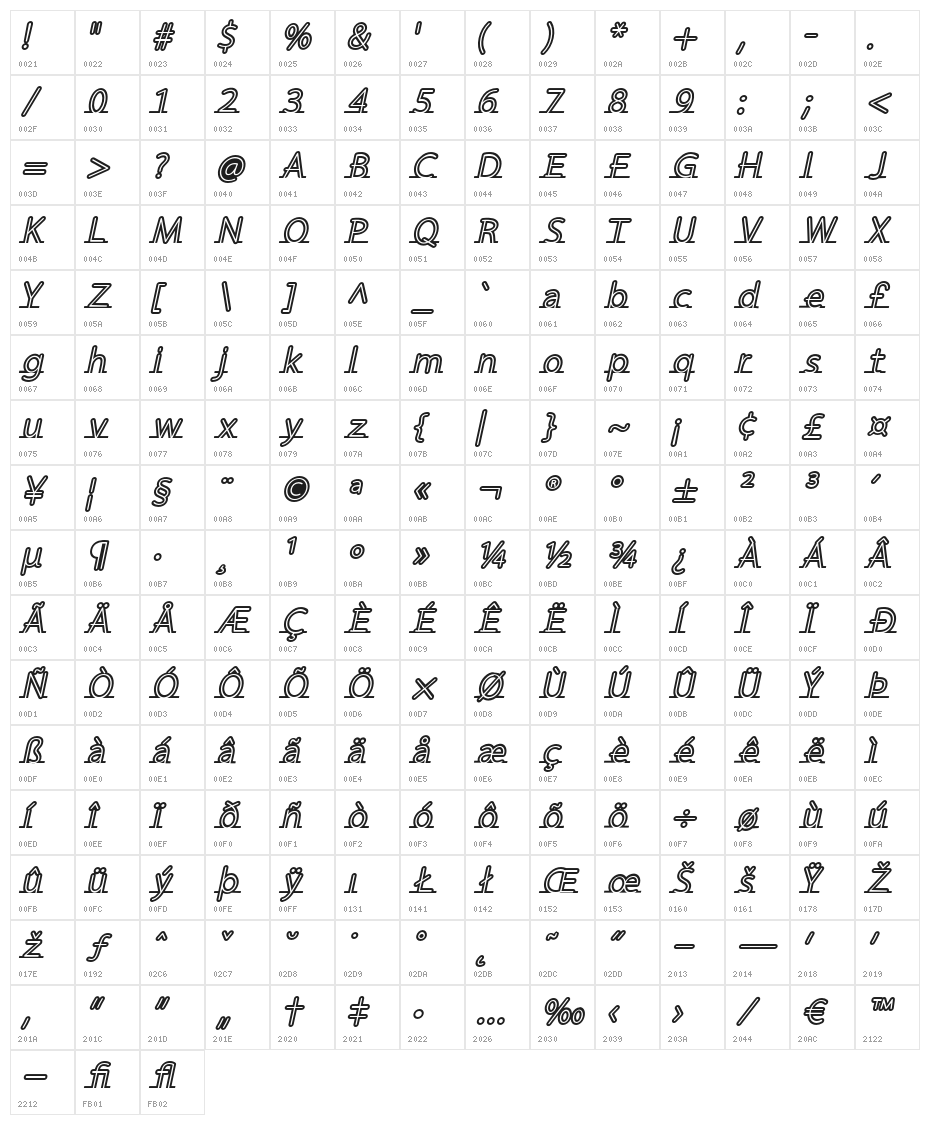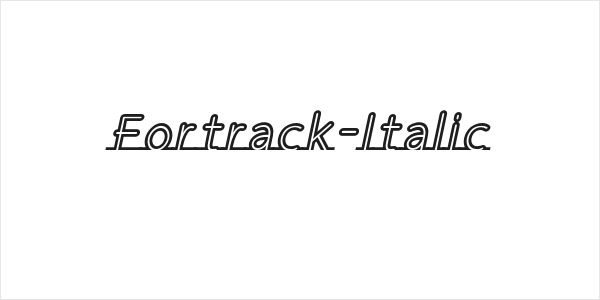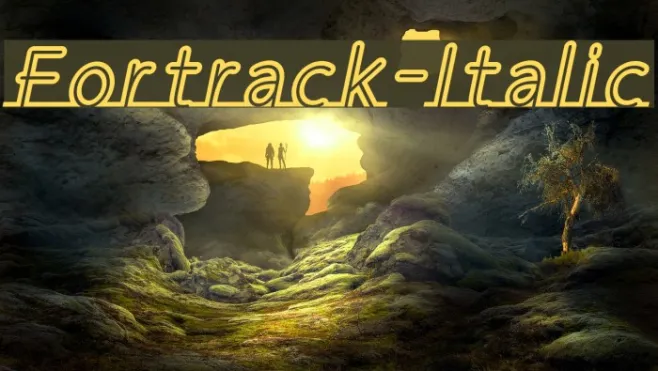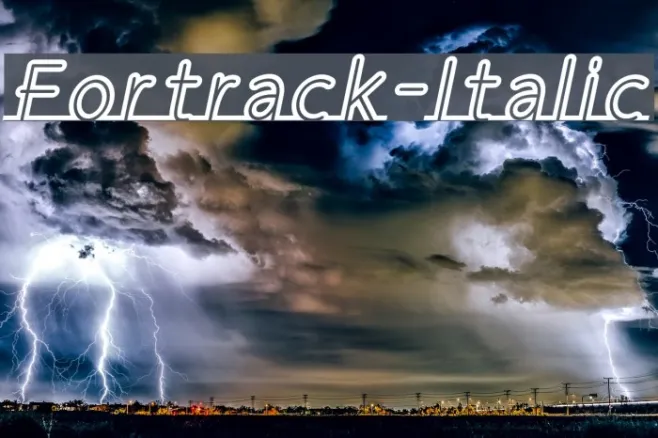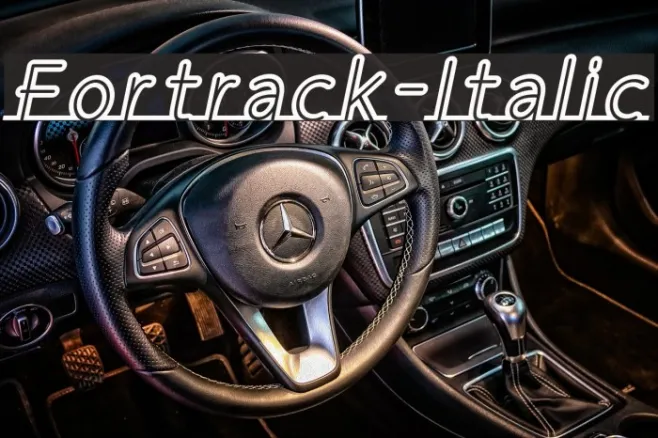
Fortrack-Italic Font
Fortrack-Italic Description
This font presents a dynamic and modern italic style, characterized by its clean and smooth lines. Each character is slightly slanted, providing a sense of motion and elegance. The uppercase and lowercase letters maintain consistent proportions, ensuring readability while adding a touch of sophistication. The numerals and special characters are designed with the same attention to detail, making them versatile for various applications. The font's overall appearance is sleek and contemporary, suitable for projects that require a stylish yet professional look.
| Proposed Projects | Ideal for branding, advertising, and editorial design where a modern and elegant touch is desired. |